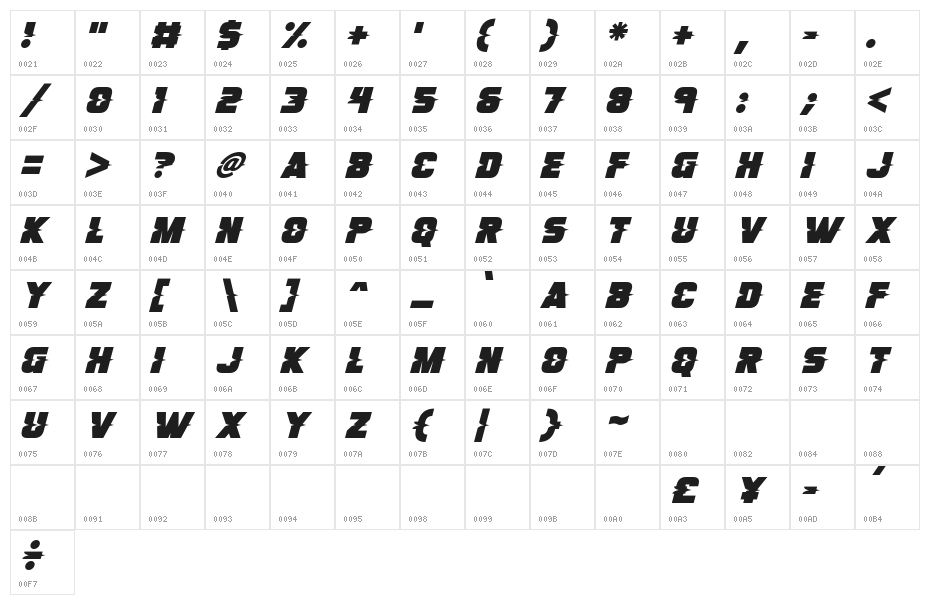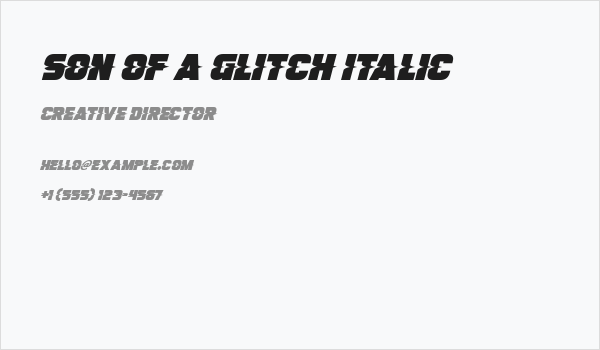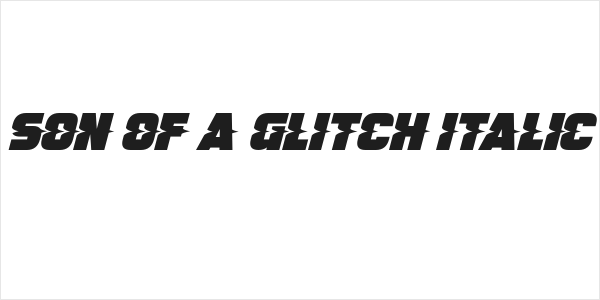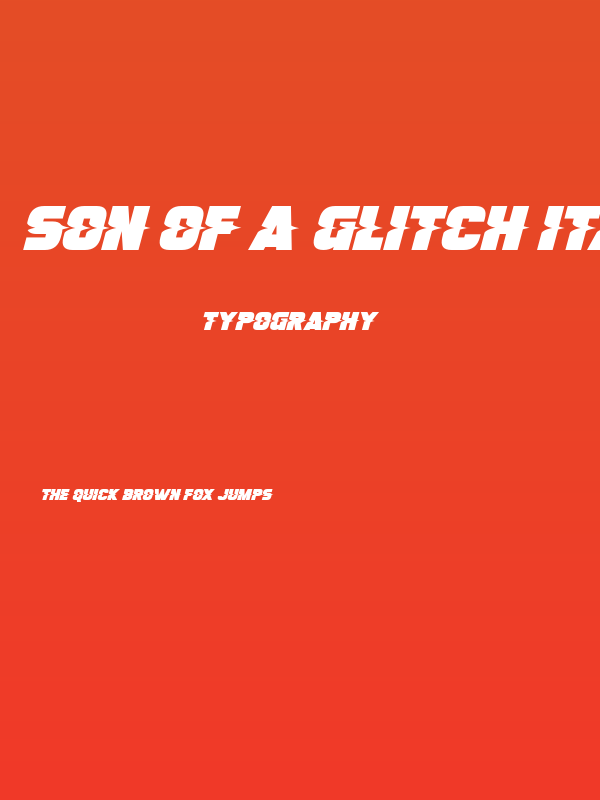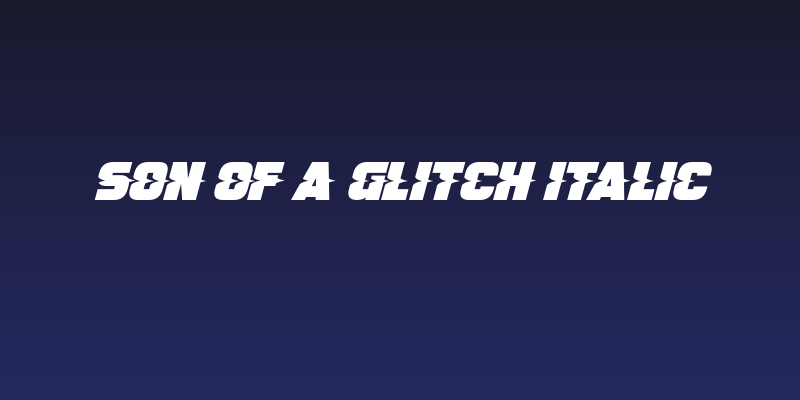
Son Of A Glitch Italic Font
Son Of A Glitch Italic Description
This font features a bold, italicized style with a distinctive glitch effect that creates a sense of movement and dynamism. The characters are heavily stylized, with sharp angles and a fragmented appearance that gives them a futuristic and digital aesthetic. The uppercase and lowercase letters maintain a consistent design, ensuring readability while still embracing the unique glitch theme. Numbers and special characters are equally bold and follow the same stylistic approach, making them suitable for attention-grabbing designs. The font's strong visual impact makes it ideal for projects that require a modern and edgy look.
| Proposed Projects | Ideal for digital artwork, video game graphics, tech-themed posters, and branding that requires a futuristic edge. |